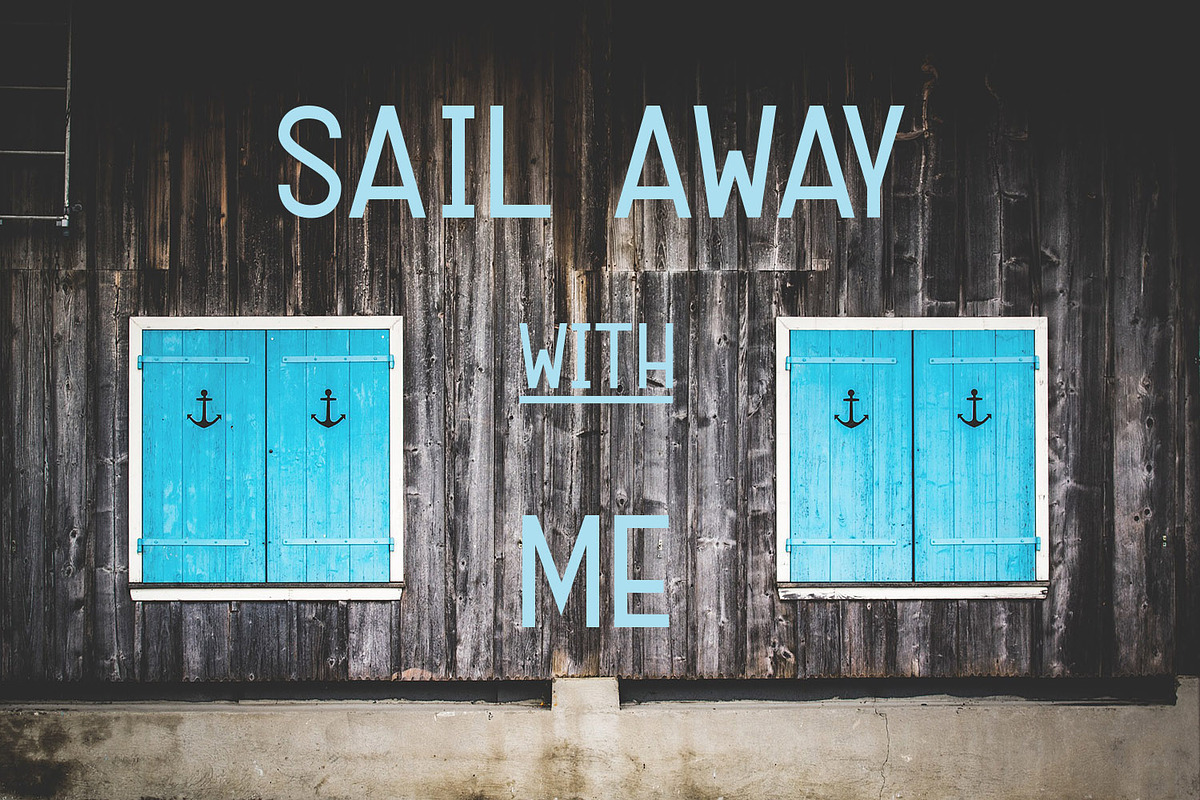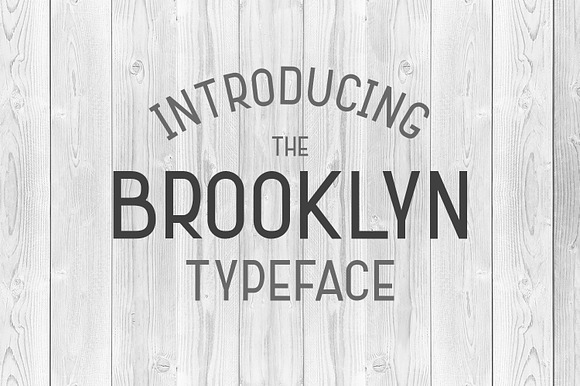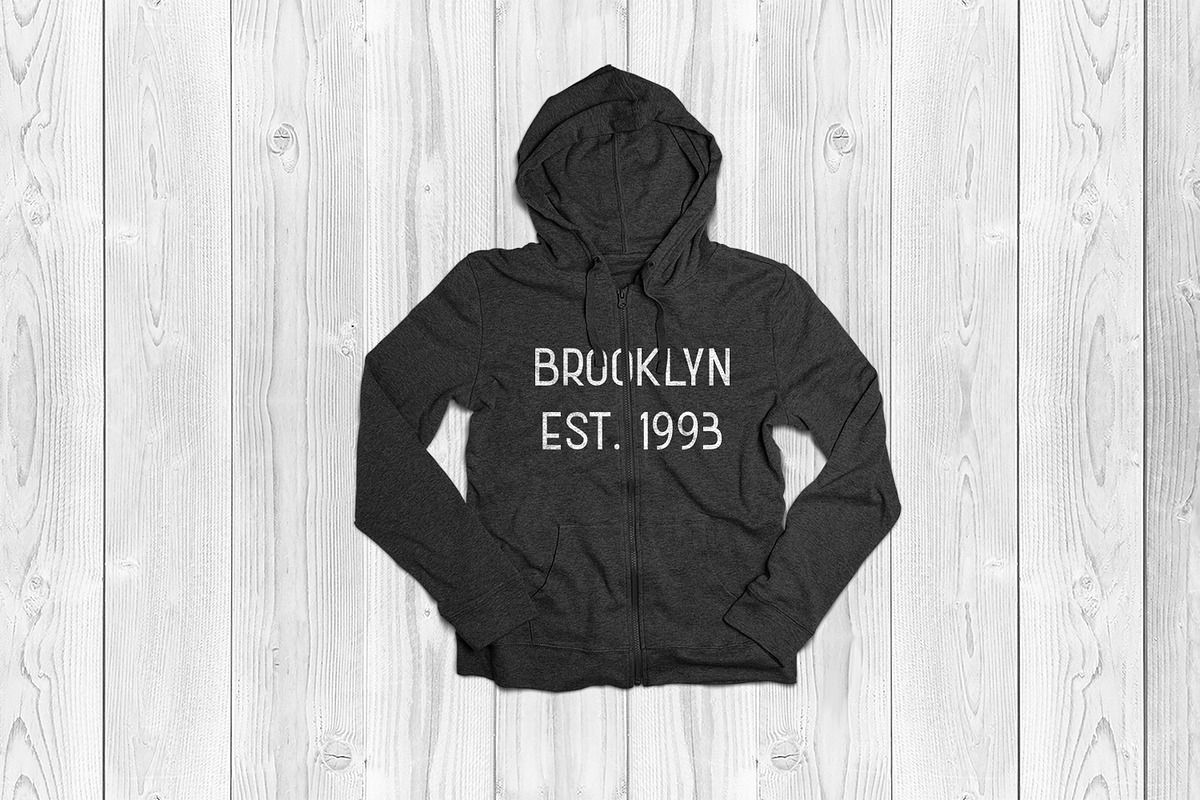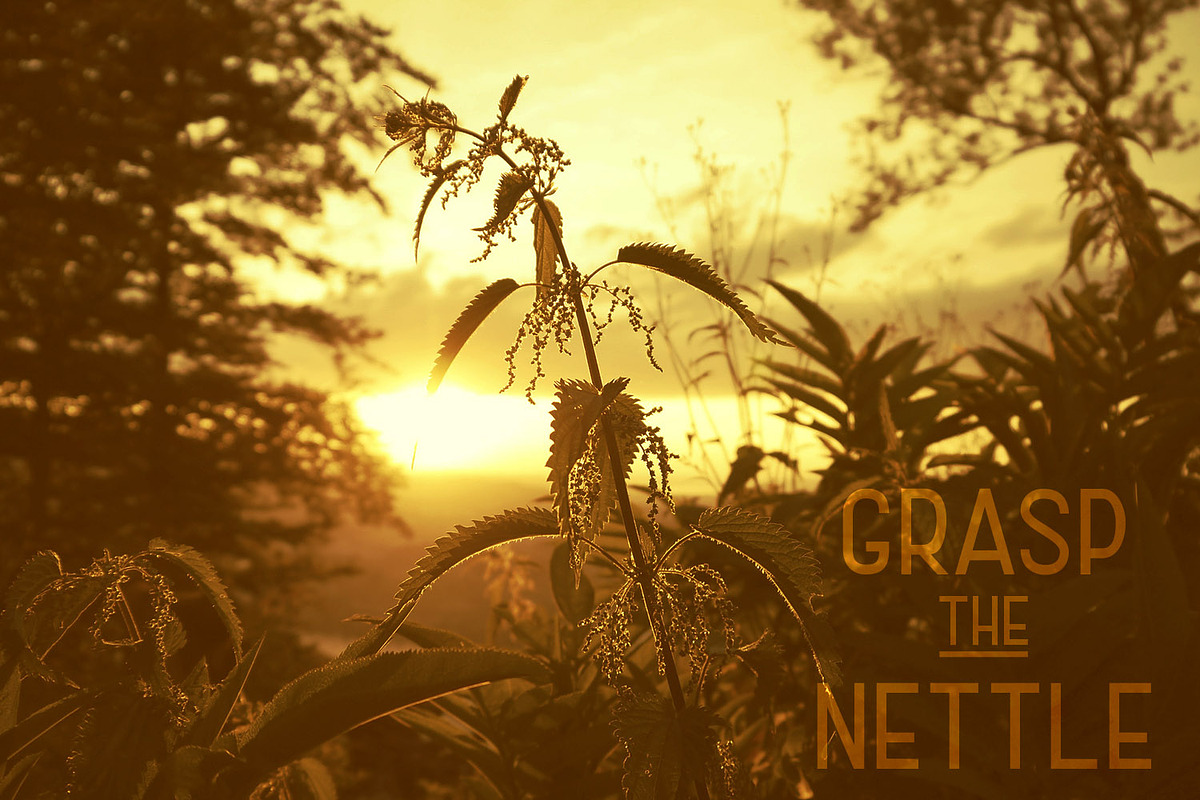
Brooklyn Typeface
A timeless sans-serif typeface that is perfect for classical or retro designs!
Why Brooklyn Typeface is worth a look
Brooklyn Typeface by Kristy Hatswell fits naturally into Branding, posters, packaging, typography.